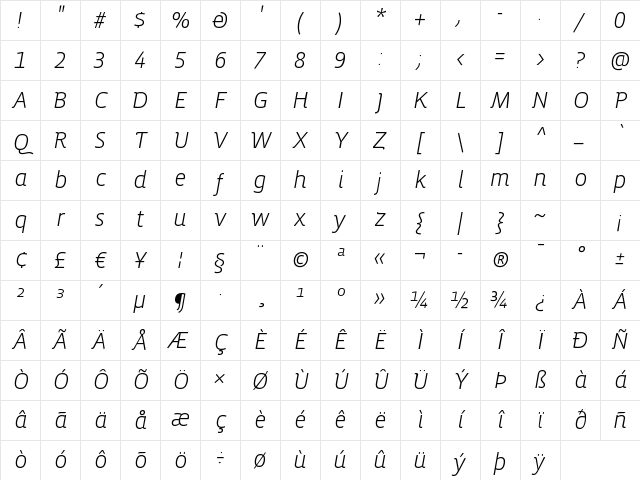
Complete VistaSansAltLightIta Regular glyph index. Displaying only characters natively supported by VistaSansAltLightIta Regular font.
VistaSansAltLightIta is a composed and adaptable typeface that performs quietly and consistently across a wide range of design contexts. Its slender proportions lend an understated elegance to any composition.